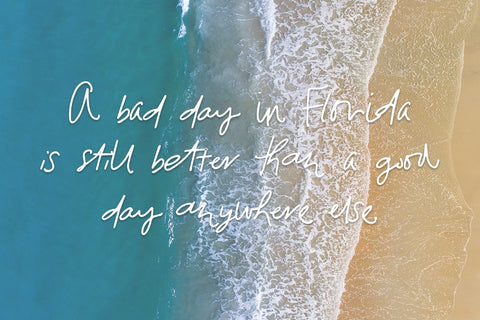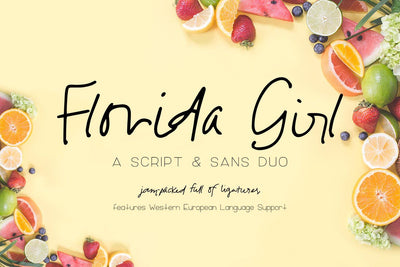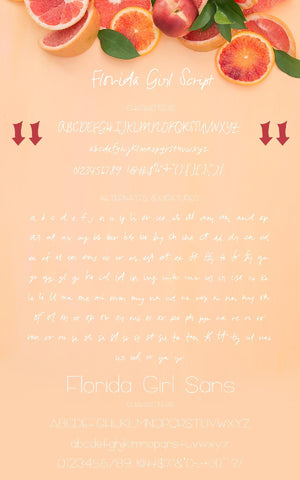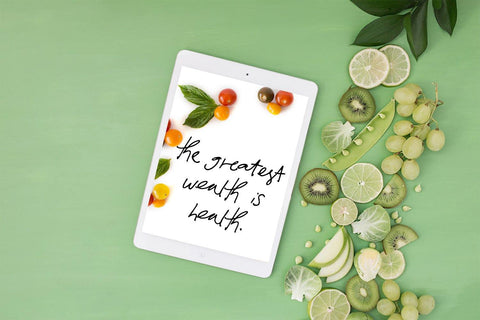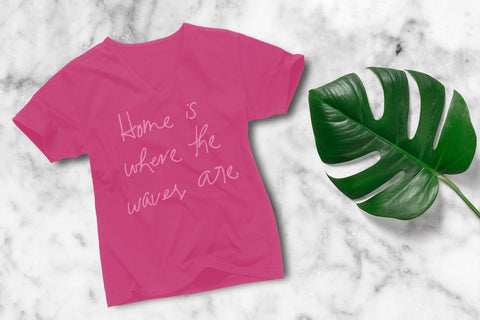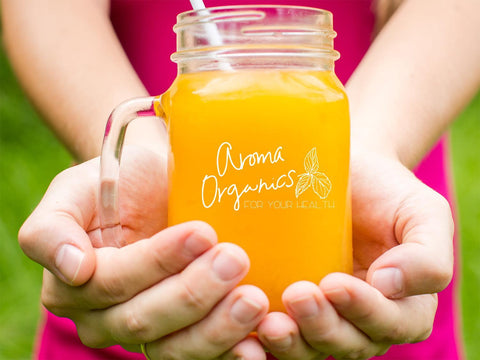
Florida Girl Script & Sans Duo
Florida Girl Script is a handwritten font — casual & quick. Packed full of ligatures for common letter combinations, it enables the user to have a scrawled look with natural breaks in letters & words, mimicking the look of handwriting & lifting a pen while writing. Paired with the more structured, clean Florida Girl Sans, this duo packs a punch for modern branding with an edge, posters, & website design.